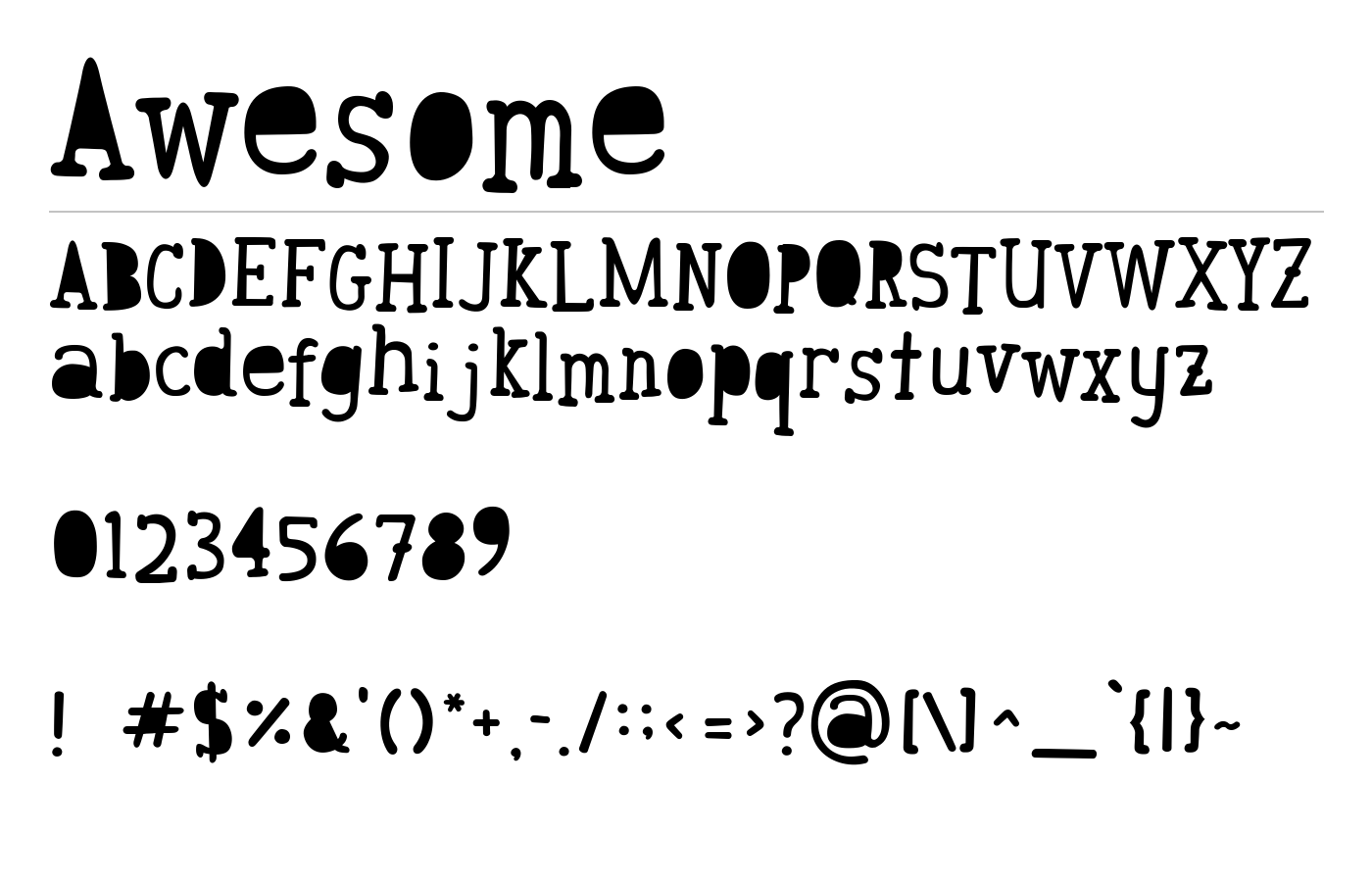
Awesome Font is a playful and quirky slab serif typeface with uneven stroke weights and irregular shapes, giving it a friendly, hand-crafted charm. Its bold, condensed letters and funky character details make it perfect for creative branding, fun headlines, and casual editorial use where a lively and informal vibe is desired.
Awesome Font
About Awesome Font
| Font family | Awesome Font |
| Designer | Tim Cant |